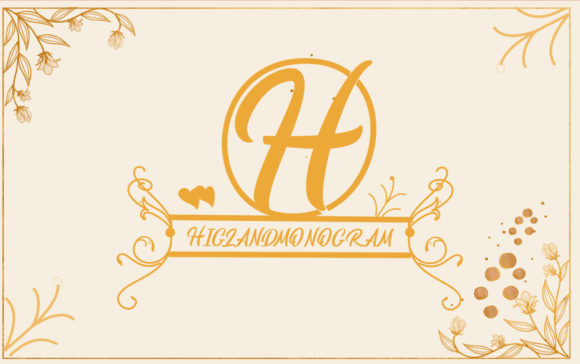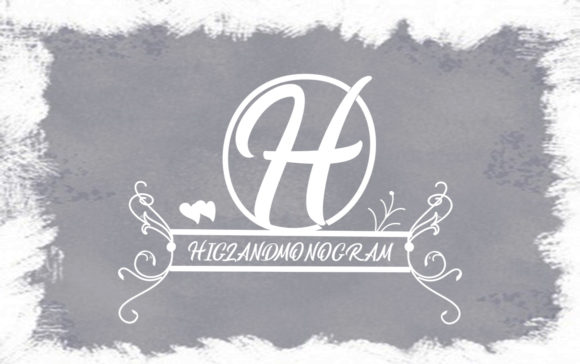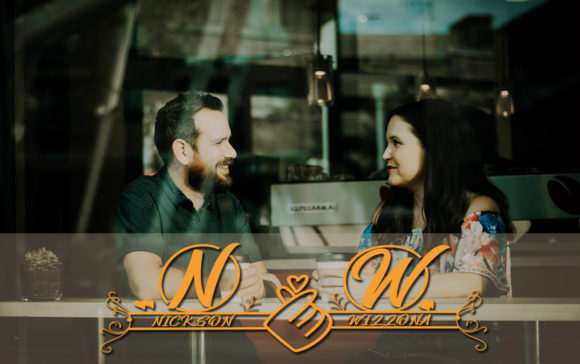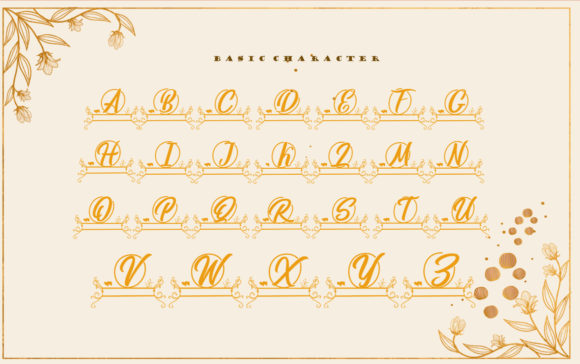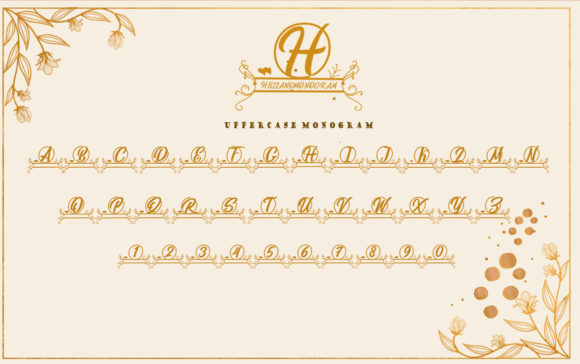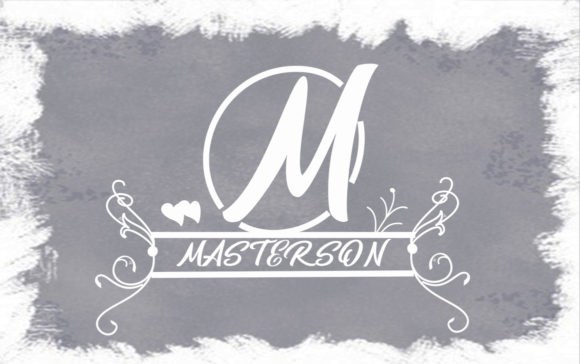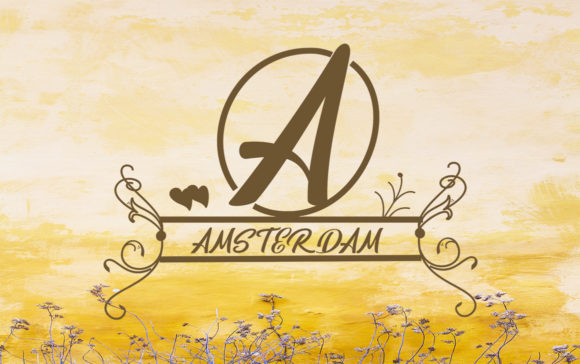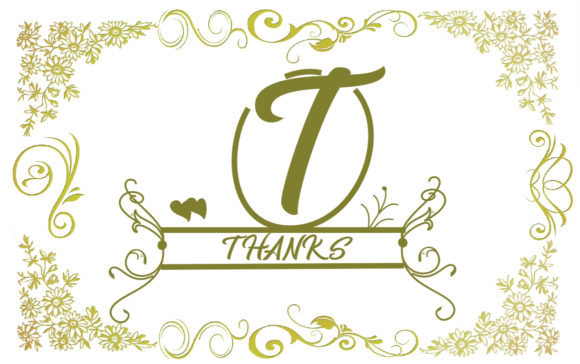
Higlandmonogram Font
About Higlandmonogram Font
Higlandmonogram is a beautiful monogram script font. It features unique characters that are perfect for wedding invitations and stationery. Fall in love with its authentic feel and use it to create gorgeous wedding invitations, beautiful stationary art, eye-catching social media posts, and cute greeting cards.